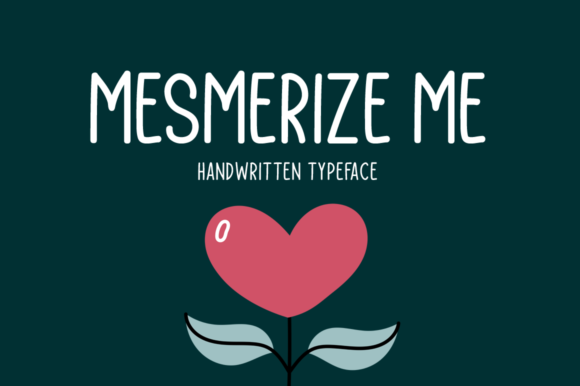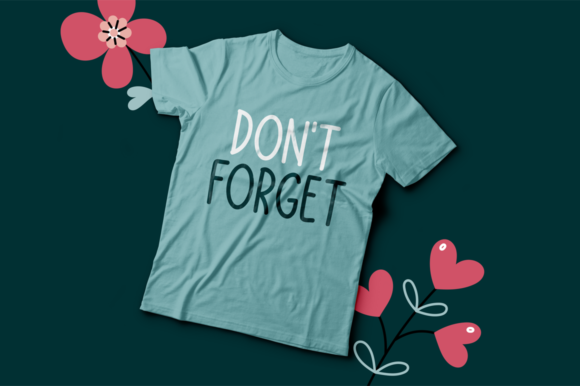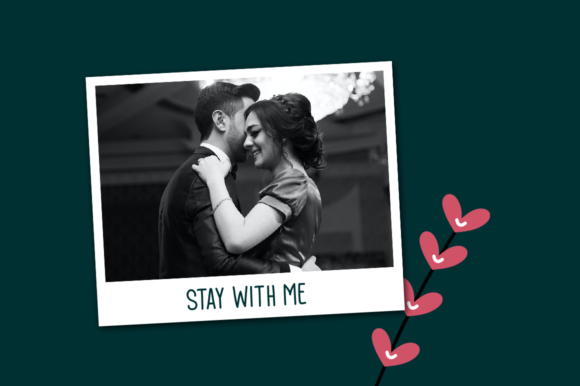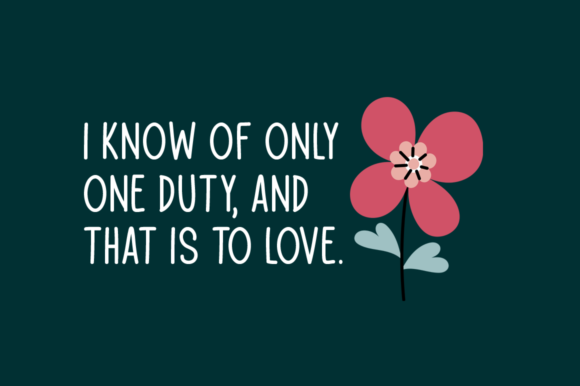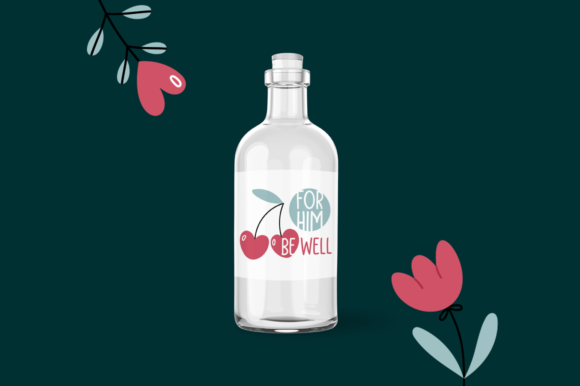
Mesmerize Me Font
About Mesmerize Me Font
Mesmerize Me is a brand new handwritten font. It is perfectly suited for stationery, logos, t-shirt, paper, print design, website header, photo frame, and much more.